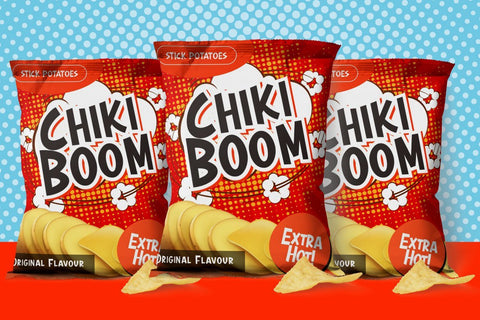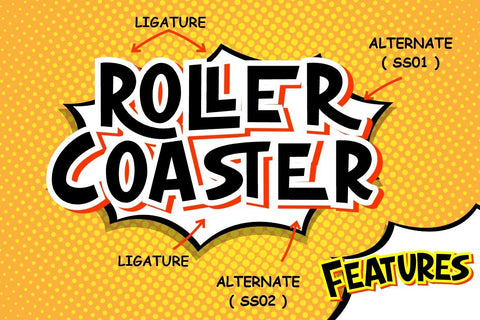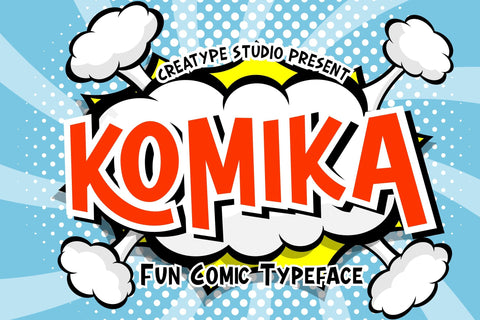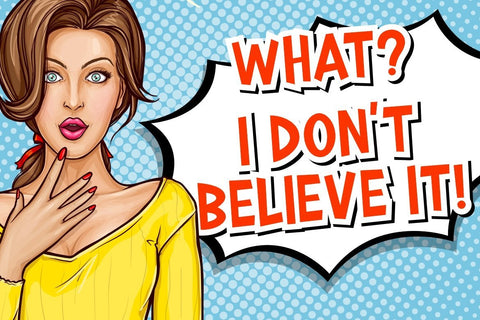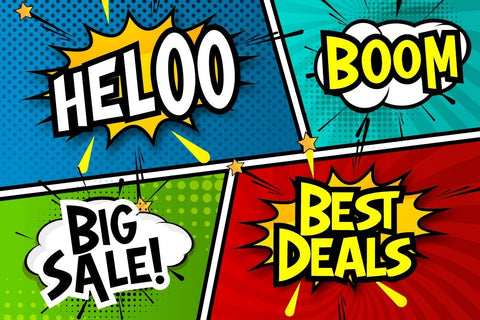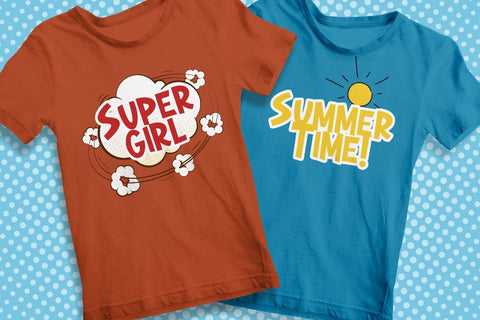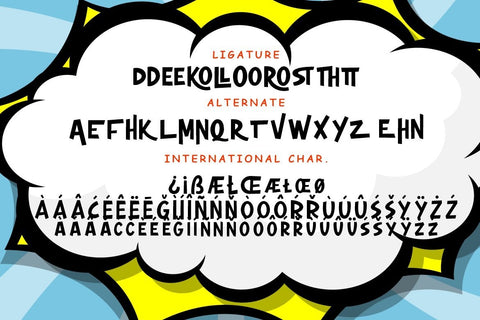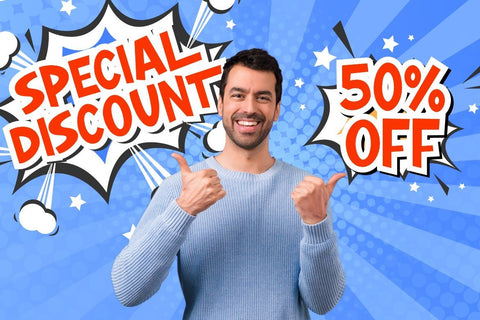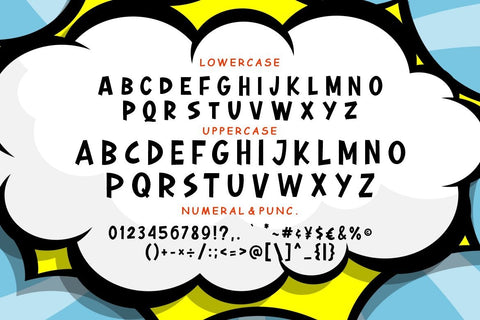
Komika Fun Comic Typeface
Komika a display bold font with fun and playful theme for your fun and comic project.
Komika is perfect for branding projects, logo, wedding designs, social media posts, advertisements, product packaging, product designs, label, photography, watermark, invitation, stationery and any projects that need handwriting taste.
- Ton of glyphs
- Ligature & Alternate